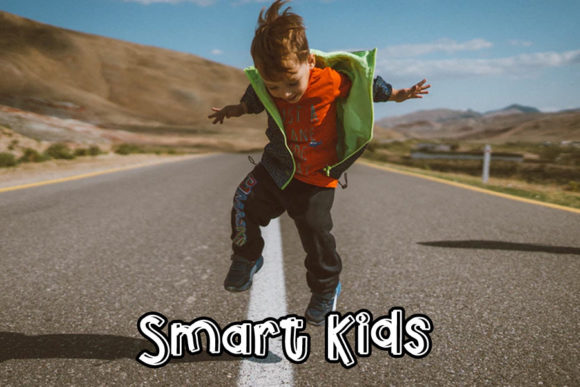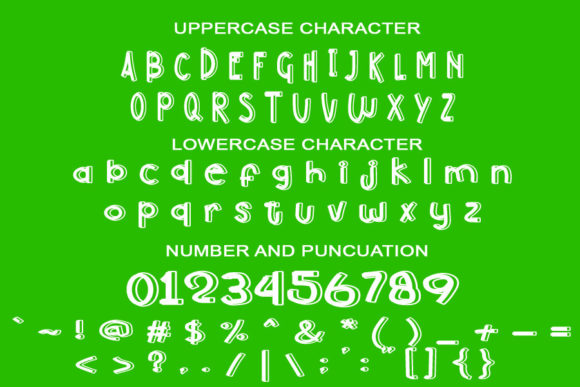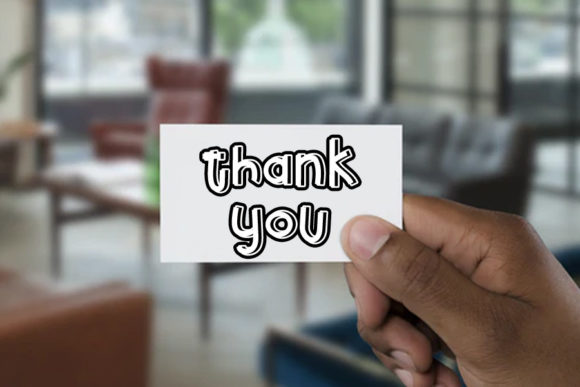
Champion Kids Font: The Perfect Choice for Fun and Creative Projects
Are you looking for a font that embodies playfulness and authenticity for your children’s activity or school project? Look no further than the Champion Kids Font! This cool and playful display font is specifically designed to add a touch of fun and excitement to any project, making it the perfect choice for designers, crafters, and educators.
What is Champion Kids Font?
Champion Kids Font is a unique and creative typeface that is inspired by the playful and carefree spirit of childhood. With its bold and colorful design, this font is sure to capture the attention of kids and adults alike. Whether you’re working on a children’s book, a school project, or a fun craft activity, Champion Kids Font is the perfect choice to add a touch of whimsy and personality to your work.
Key Features of Champion Kids Font
So, what makes Champion Kids Font so special? Here are just a few of its key features:
- Playful Design: Champion Kids Font features a playful and irregular design that is sure to add a touch of fun and excitement to any project.
- Bold and Colorful: With its bold and colorful design, this font is perfect for projects that require a pop of color and attention-grabbing text.
- Easy to Read: Despite its playful design, Champion Kids Font is easy to read and understand, making it perfect for projects that require clear and concise text.
- Versatile: Champion Kids Font can be used for a wide range of projects, from children’s books and school projects to craft activities and more.
Uses for Champion Kids Font
So, what can you use Champion Kids Font for? The possibilities are endless! Here are just a few ideas to get you started:
- Children’s Books: Add a touch of whimsy and personality to your children’s book with Champion Kids Font.
- School Projects: Make your school project stand out with this fun and playful font.
- Craft Activities: Use Champion Kids Font to add a personal touch to your craft activities, such as handmade cards and gift tags.
- Party Invitations: Create fun and playful party invitations with Champion Kids Font.
Why Choose Champion Kids Font?
So, why should you choose Champion Kids Font for your project? Here are just a few reasons:
- Unique Design: Champion Kids Font features a unique and creative design that is sure to set your project apart.
- High-Quality: Champion Kids Font is a high-quality font that is designed to produce clear and crisp text.
In conclusion, Champion Kids Font is a cool and playful display font that is perfect for any children activity or school project. With its bold and colorful design, easy-to-read text, and versatile uses, this font is sure to add a touch of fun and excitement to any project. Whether you’re a designer, crafter, or educator, Champion Kids Font is a great choice for anyone looking to add a personal touch to their work.